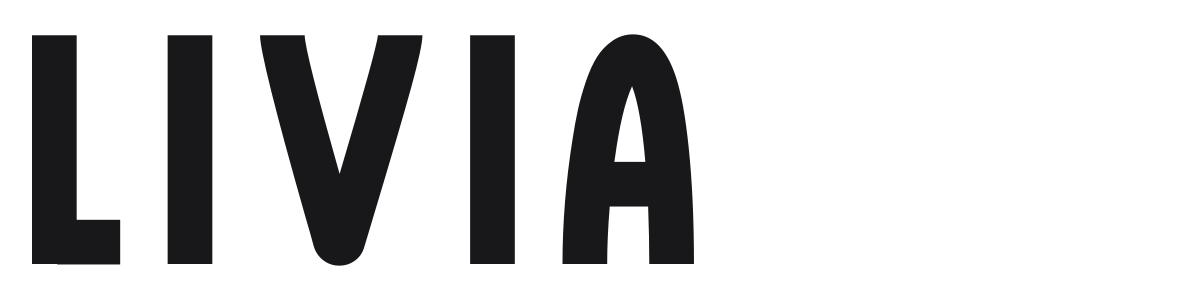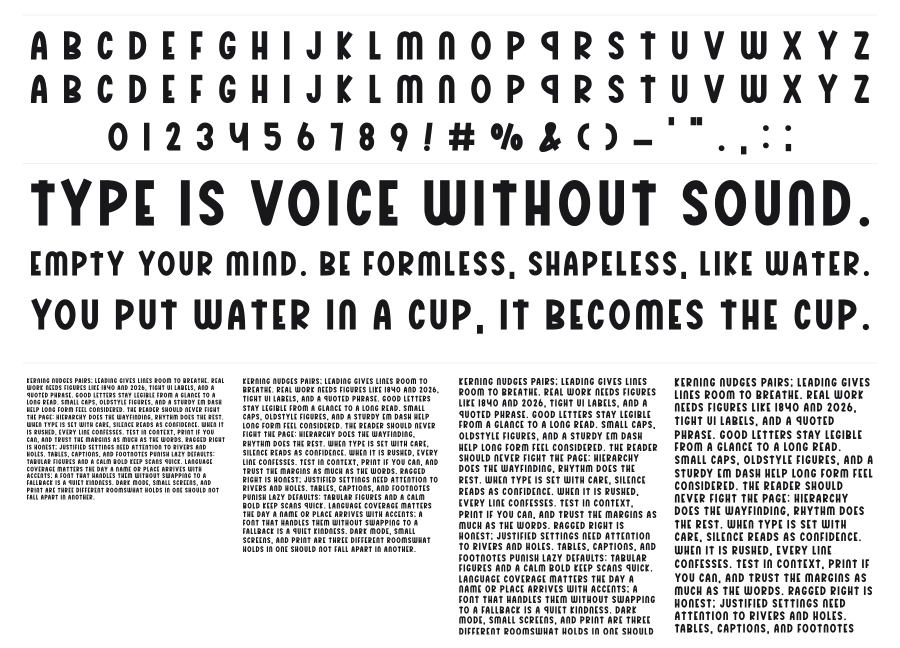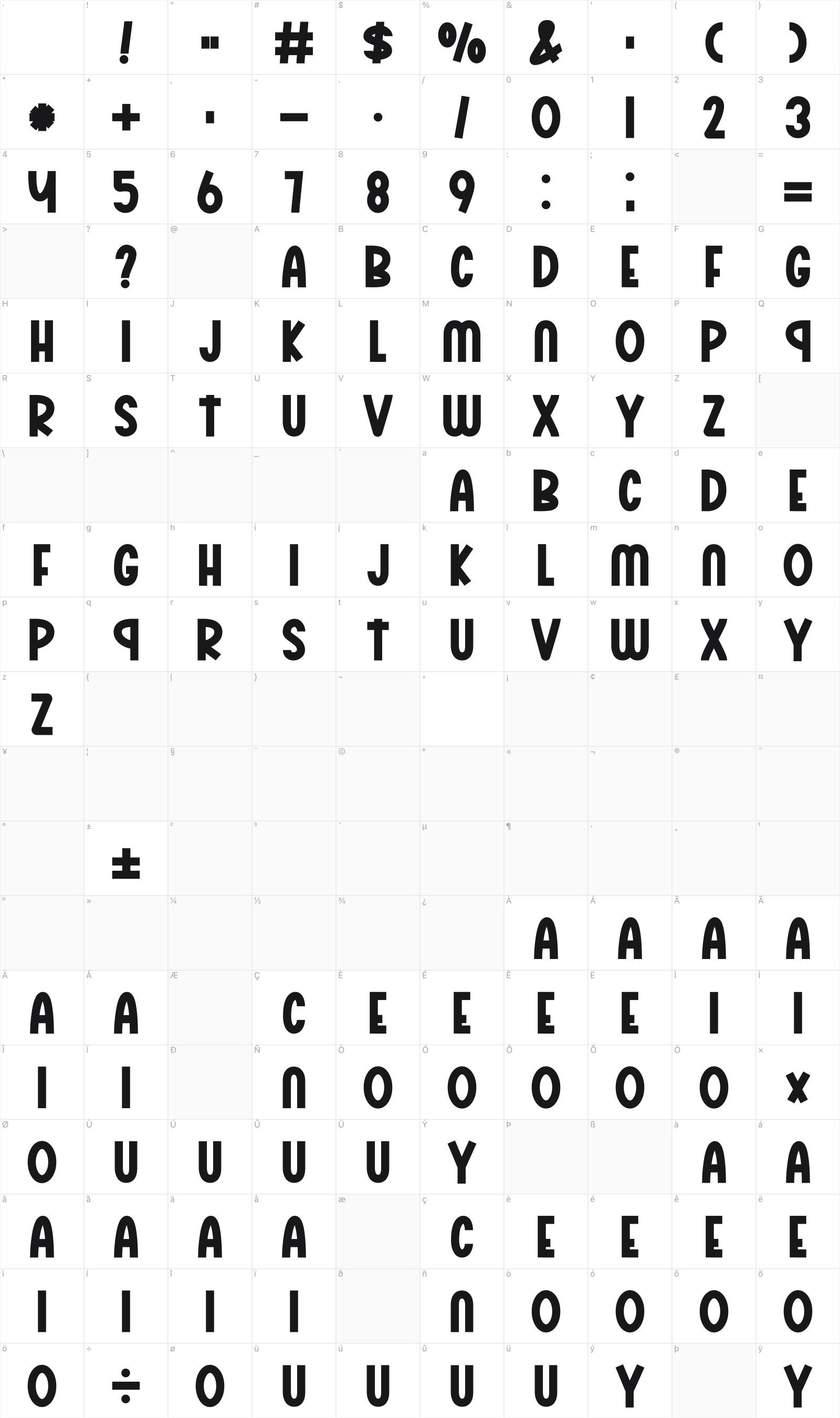
Livia
Livia is a bold condensed display sans with a quirky bohemian personality drawn from 1960s retro graphics. Its mix of flat and rounded terminals, uneven optical details, and heavy weight give it a handmade warmth that mechanical grotesques lack. Strong for poster headlines, packaging, and brand identities with a vintage or artisanal feel.